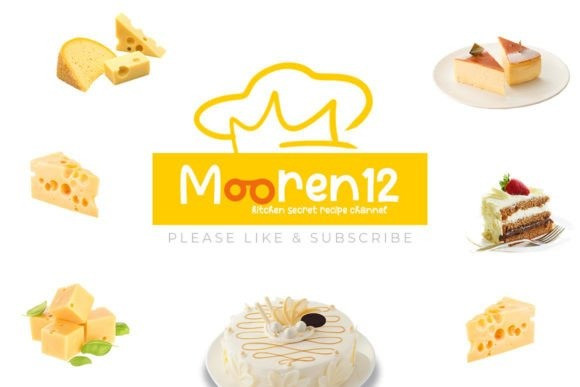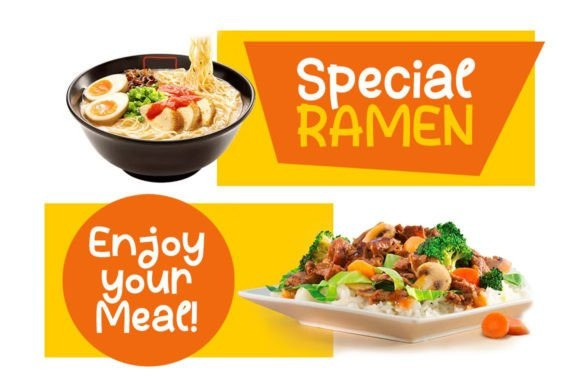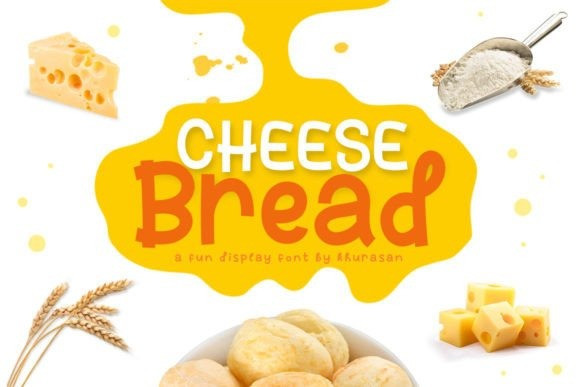
Cheese Bread Font
Cheese Bread Display Font is a modern and fancy display font perfect for posters, logos, magazines, book covers, banners, and many more! Get this quirky display font, and use it to create lovely designs!